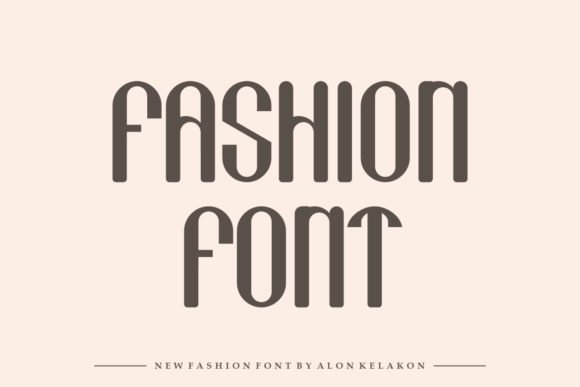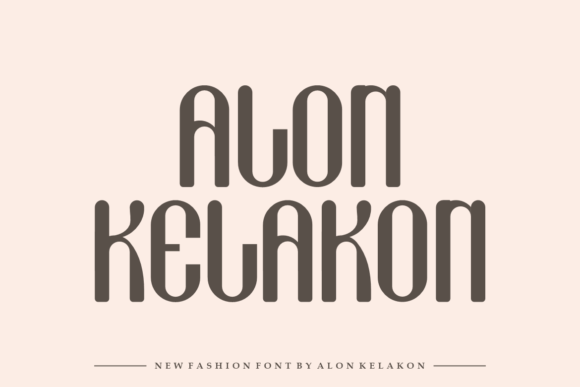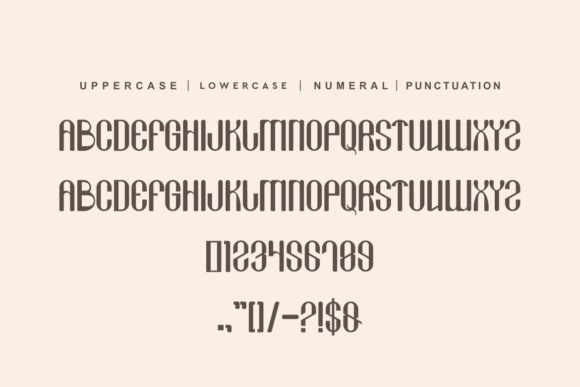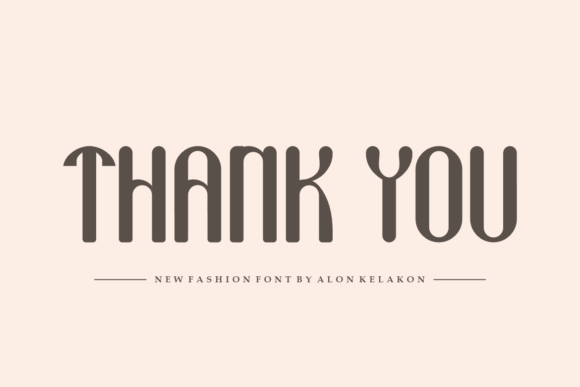
Introduction to Kasiqueen Font
| 👤 Author | alonkelakon |
Meet the Kasiqueen Font, a stunning modern display font that’s perfect for making your project shine. With its intricate details and whimsical flair, Kasiqueen Font is a valuable addition to any designer’s toolkit. Whether you’re working on a free download or a commercial project, this font is sure to elevate your design to the next level.
Key Features of Kasiqueen Font
- Unique Design**: Kasiqueen Font offers a distinctive and elegant design that is perfect for creative projects requiring a touch of sophistication.
- High-Quality Typography**: This font is designed to provide high-quality typography, making it ideal for use in various design resources, including logos, brochures, and business cards.
- Transparent Background**: Kasiqueen Font features a transparent background, allowing designers to easily layer the font over images or other design elements.
- High Resolution**: This font is designed at high resolution (300 DPI), making it suitable for use in various print and digital applications.
- Perfect for Creative Projects**: Kasiqueen Font is an excellent choice for designers working on creative projects, including branding, advertising, and editorial design.
Honest Review: Kasiqueen Font
I recently stumbled upon the Kasiqueen Font, and I must say it’s a fantastic addition to any design resource library. This high-quality font is perfect for creative projects that require a touch of elegance and sophistication.
- ✨ The Kasiqueen Font has a wide range of characters, including international symbols, making it an excellent choice for multilingual projects.
- ✨ The design is clean and minimalistic, making it perfect for modern designs that require a transparent background.
- ⚠️ The font may not be suitable for projects that require bold or italic text, as it can become difficult to read.
Overall, I’m impressed with the Kasiqueen Font and would highly recommend it to designers looking for a high-quality, free font for their creative projects.
The Kasiqueen Font is a versatile and high-quality design resource ideal for various creative projects. It offers a unique aesthetic and is available for free download.
The Kasiqueen Font is suitable for a wide range of creative projects, including:
- Logo creation
- Print materials
- Digital marketing